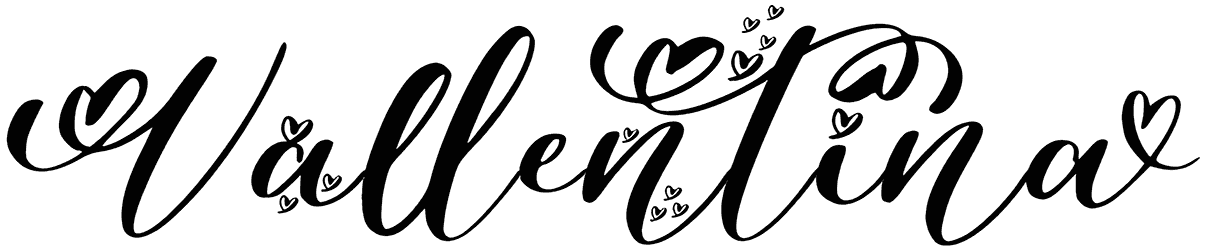
Vallentina Font
Make your words dance with love, and be sure your design is impressive enough. This heart font with its delicate calligraphy visual can make this dreamy idea come true. Vallentina font would give a charming mood to your words and will mesmerize your visitors. Don’t miss this Valentine’s font and highlight your artistic talent.